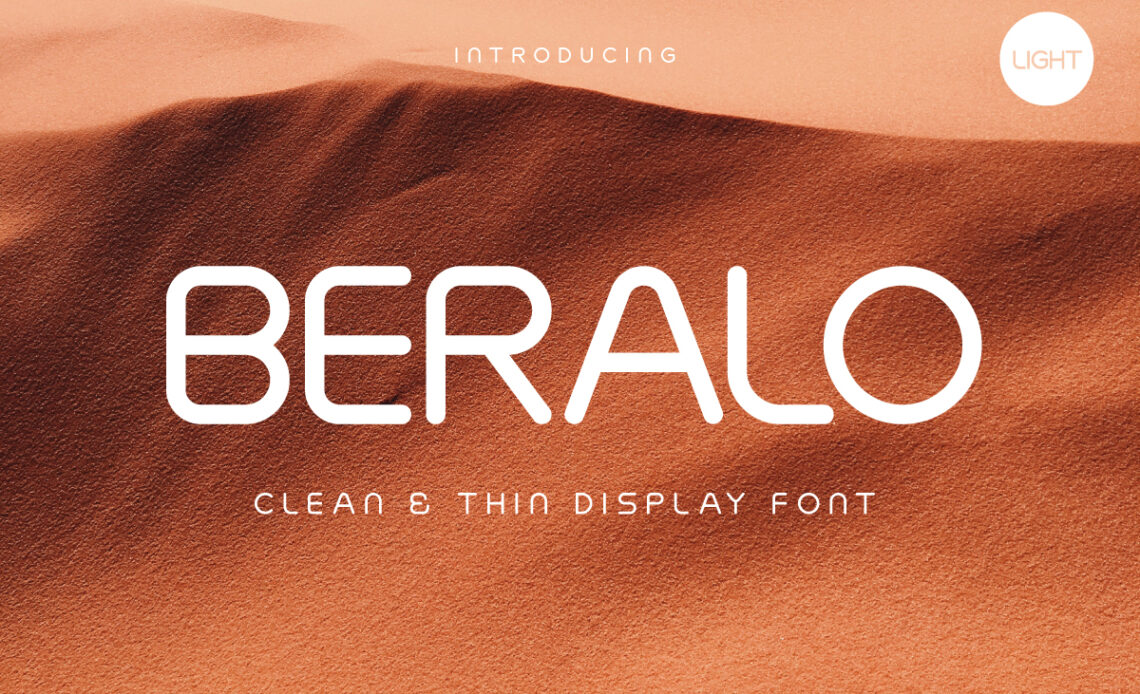
Beralo Light Font
Introducing Beralo Light, a contemporary all-caps font that exudes both grace and audacity. Its minimalistic design radiates a sense of simplicity and poise, while its solid structure imparts a sense of reliability and strength. This font is a true chameleon, effortlessly adapting to diverse design projects. Its unpretentious nature makes it the perfect choice for crafting logos, headlines, posters, and branding materials that demand attention without overpowering the overall design.
Beralo Light possesses an understated elegance that commands attention without overwhelming the senses. Its clean lines and balanced proportions create a visually harmonious experience, ensuring your designs leave a lasting impression without being overly ornate. This font is not a mere tool; it's an extension of your creative vision, seamlessly blending with your design aesthetic to elevate your projects to new heights of sophistication.
Step into a world of limitless possibilities with Beralo Light. Its versatility knows no bounds, effortlessly complementing a wide spectrum of design concepts. From sleek and minimalist branding to bold and captivating marketing campaigns, this font seamlessly integrates into your creative vision. Unleash your imagination and craft designs that resonate with your audience, leaving an indelible mark on their minds.
Embrace the power of simplicity and experience the transformative impact of Beralo Light. Its minimalist approach cuts through the clutter, allowing your message to shine through with unwavering clarity. This font is a breath of fresh air in a world saturated with visual noise, ensuring your designs stand out with their uncluttered elegance.
With Beralo Light, you hold the key to unlocking a new era of design excellence. Let your creativity soar as you explore the infinite possibilities this font offers. Its timeless appeal transcends trends and fads, making it a cornerstone of your design arsenal for years to come. Embrace the brilliance of Beralo Light and embark on a journey of visual storytelling that will captivate your audience and leave them yearning for more.